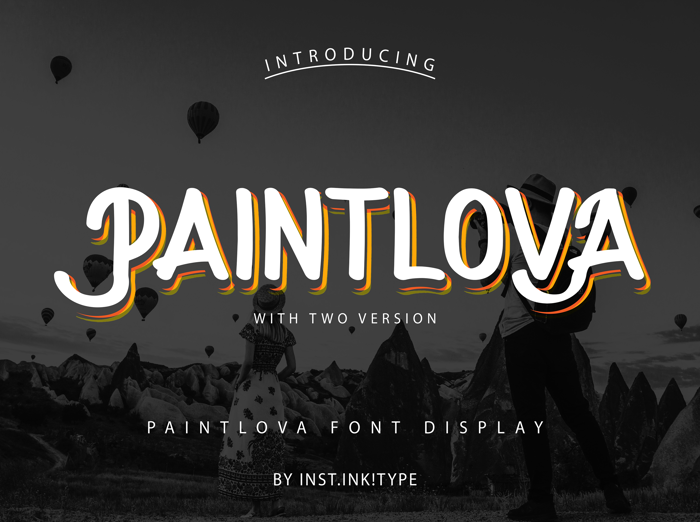
PAINTLOVA Font
Introducing The PaintLova Font Display. Available in 2 version, reguler and all caps. A unique typeface with some features in OpenType file. PaintLova include stylistic alternate, ligatures, discretionary ligatures, contextual alternates, ordinals, fractions and multilingual support.